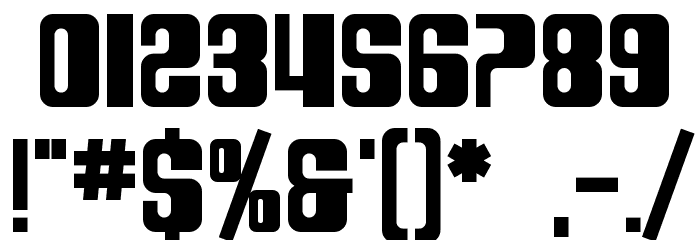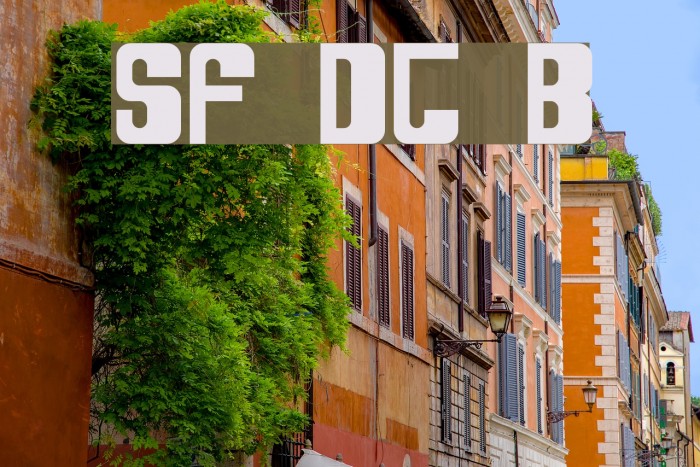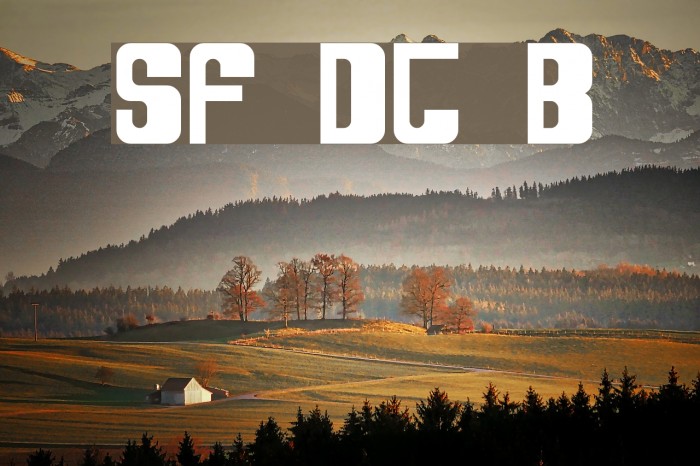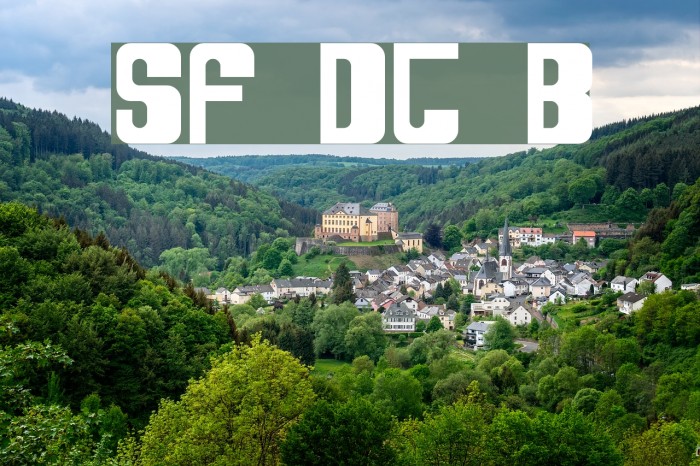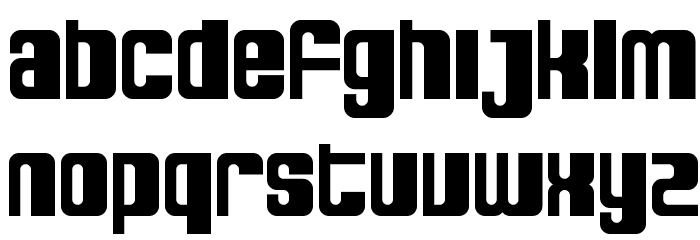
SF DecoTechno Bold Font
SF DecoTechno Bold Description
This font features a bold, geometric style with a strong presence. The characters are constructed with thick, uniform strokes, giving them a robust and modern appearance. The uppercase and lowercase letters share a consistent design language, with rounded edges and a slightly condensed form. The numerals and special characters maintain the same boldness, ensuring a cohesive look across all elements. The font's design is reminiscent of industrial and technological themes, making it suitable for projects that require a futuristic or tech-inspired aesthetic.
A bold, geometric font with a modern, tech-inspired style from Modern fonts.